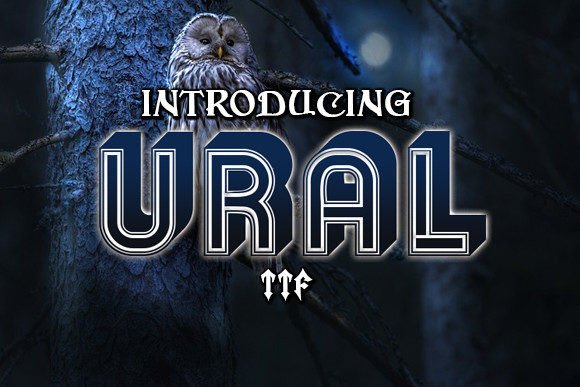
Step into the realm of elegance and sophistication with Ural Font, the crown jewel of display fonts, meticulously crafted by the visionary designer vladimirnikolic. This font echoes the charm of bygone eras, captivating hearts with its timeless allure.
Ural Font is an artistic masterpiece, meticulously designed to evoke a sense of nostalgia and romance. Its graceful curves and intricate details are a testament to the artistry and dedication of its creator. Immerse yourself in the beauty of a font that transcends time, leaving an indelible mark on your creative endeavors.
Ural Font is not just a font; it's a gateway to a world of creativity and self-expression. Whether you're a seasoned designer or just starting your artistic journey, Ural Font will elevate your projects to new heights of sophistication. Its versatility knows no bounds, effortlessly adapting to a wide array of design applications, from wedding invitations to posters and postcards.
With Ural Font, you'll have the power to transform ordinary words into captivating messages that resonate with your audience. Its distinctive character will add a touch of elegance to your designs, leaving a lasting impression that lingers in the minds of your viewers.
But Ural Font is more than just a visually stunning font; it's an investment in your creative future. Its timeless design ensures that your projects will remain relevant and captivating for years to come, standing the test of time with grace and poise.
Join the ranks of creative visionaries who have embraced Ural Font as their font of choice. Let its timeless beauty elevate your designs, captivating your audience with its charm and elegance. Embrace the power of Ural Font and unlock a world of creative possibilities.